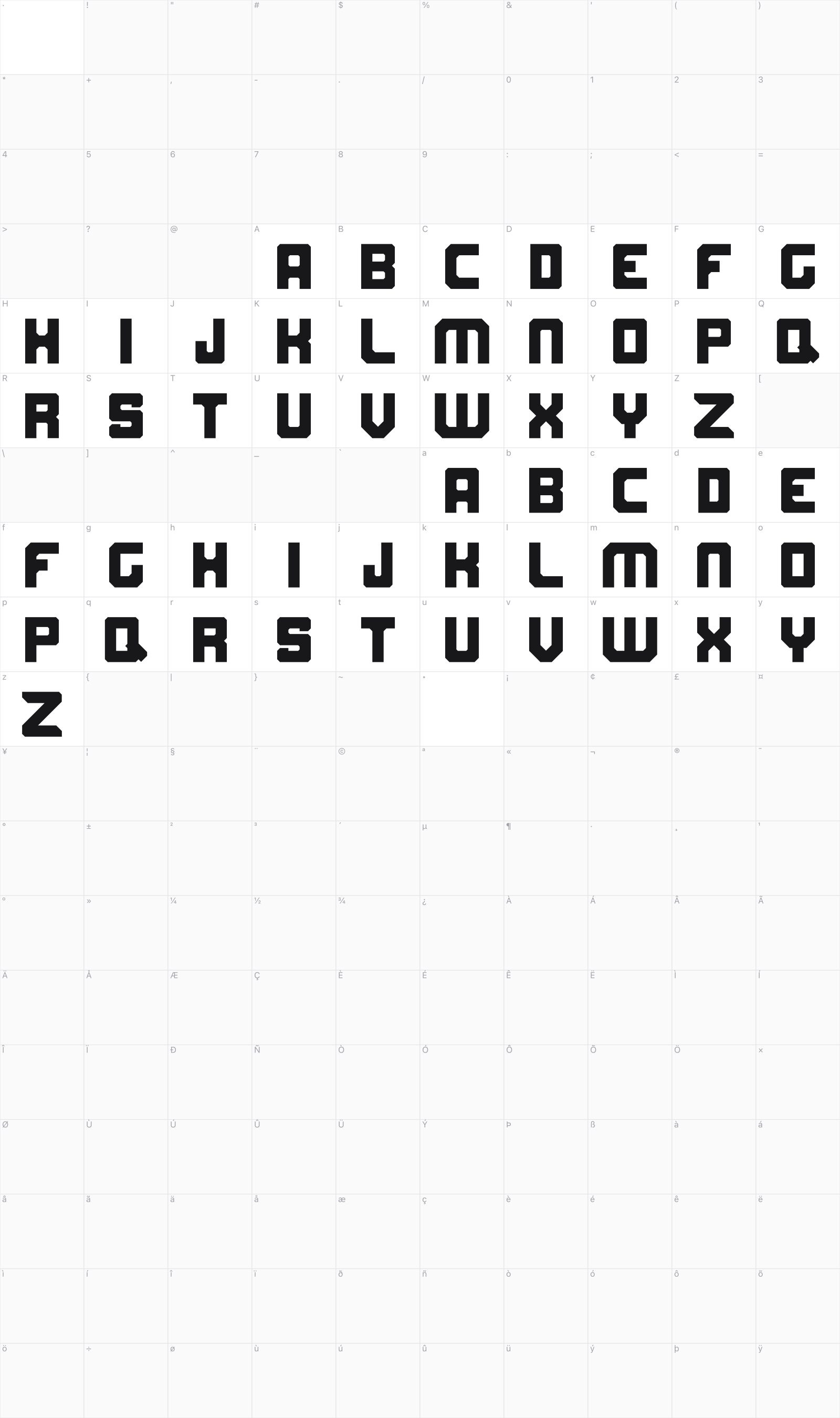
Mordak
Mordak is a heavy square-grid techno display font built from modular rectangular strokes with notched corners and uniform weight. The construction gives it a raw, digital-block character that reads as aggressive and futuristic at headline sizes. Strong in gaming titles, album covers, and any context demanding maximum visual impact.